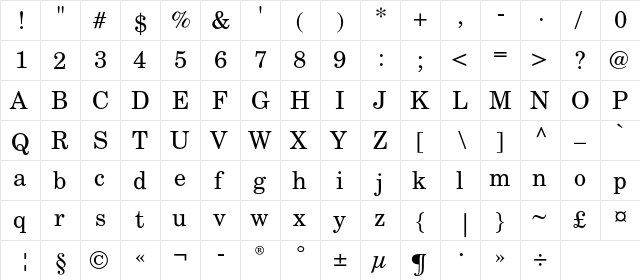
NewCenturySchoolbookC Regular
Design Context for NewCenturySchoolbookC Typeface
NewCenturySchoolbookC takes a measured approach to typography — its balanced proportions and neutral character make it a reliable workhorse for both digital and print work.